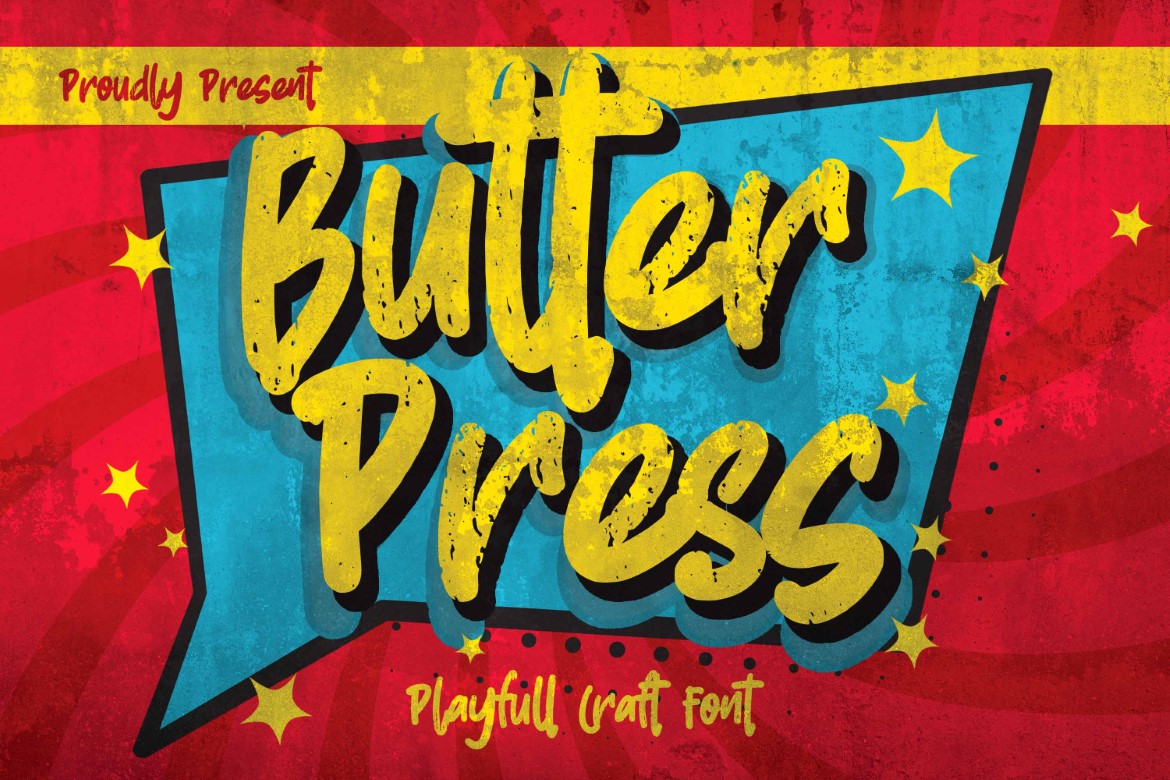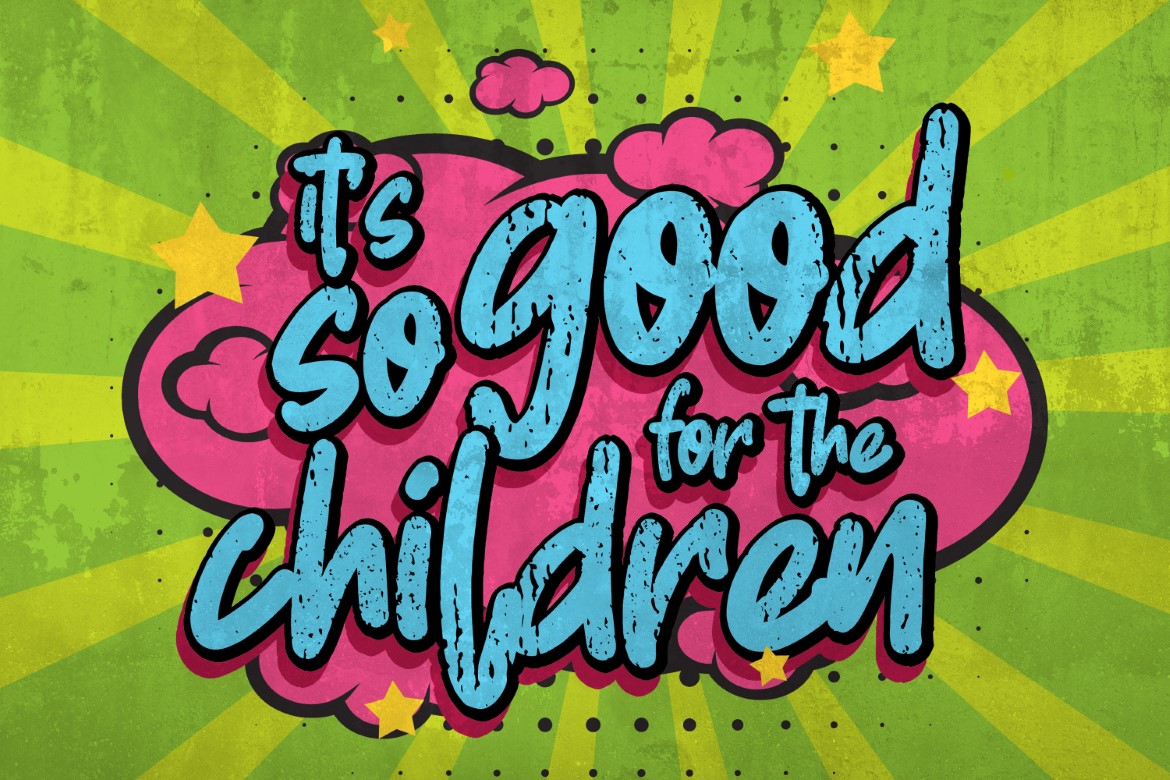
Butter Press – Playful Craft Font Display Font is an Grungy cartoon font brush that is written casually and quickly.
That is why Butter Press has a authentic, and strong characteristic more natural look.
Butter Press Perfect for designs, branding projects, Logo design,Quotes product packaging and another Project that require cool strong display font.